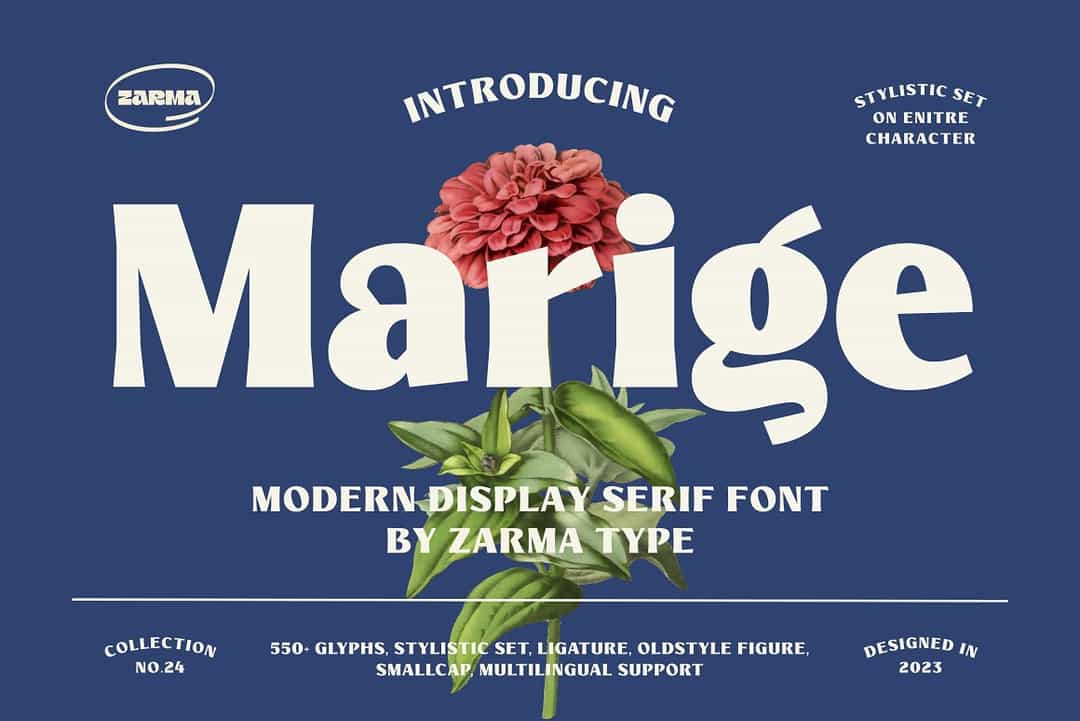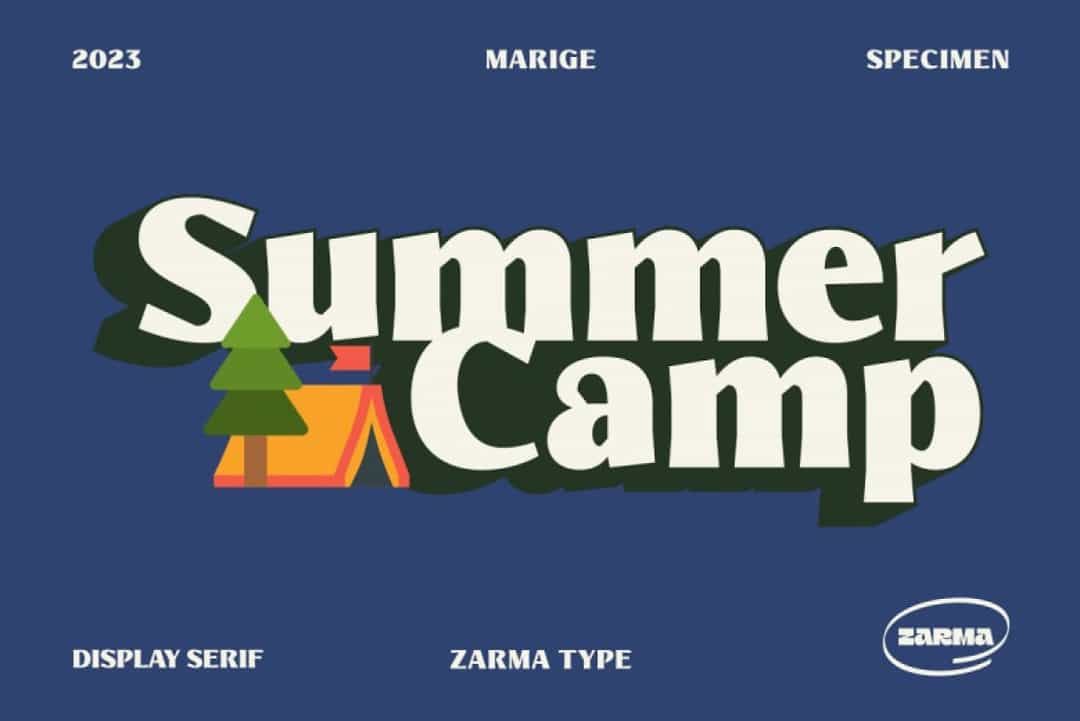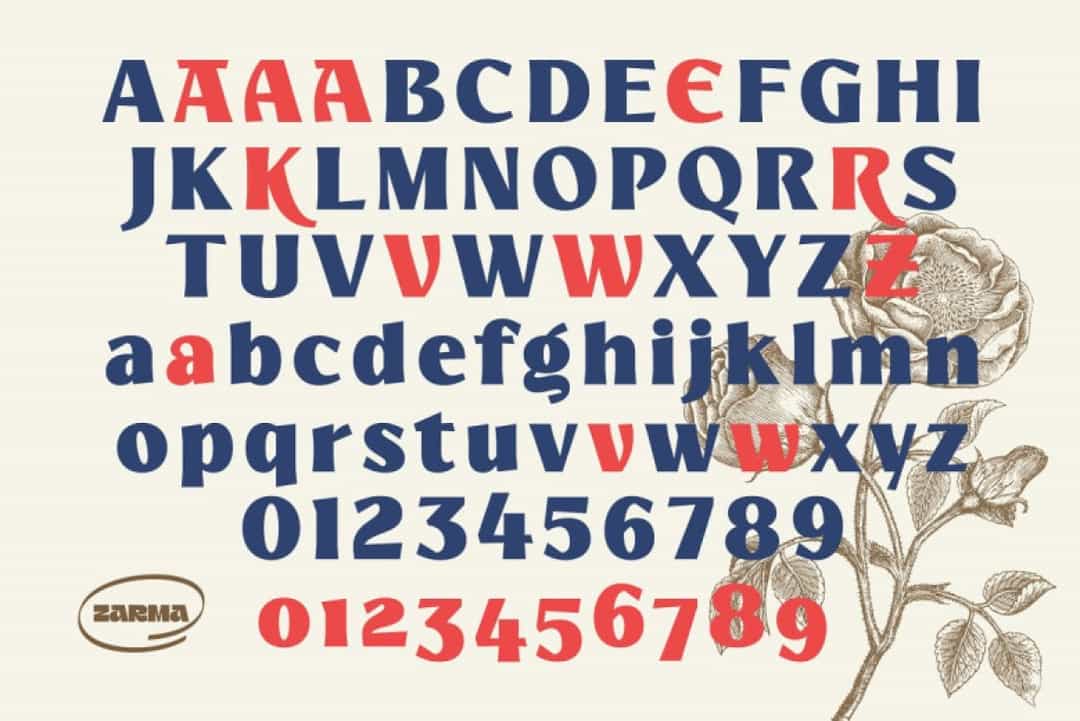
Marigeis an impressive high-contrast display serif font with over 550 glyphs that is both distinguishing and exudes confidence and strength. Marige also includes open font features like stylistic set old style ligature discretionary ligature small cap. Perfect for posters headlines logos etc it gives your projects an authentic yet modern appearance.